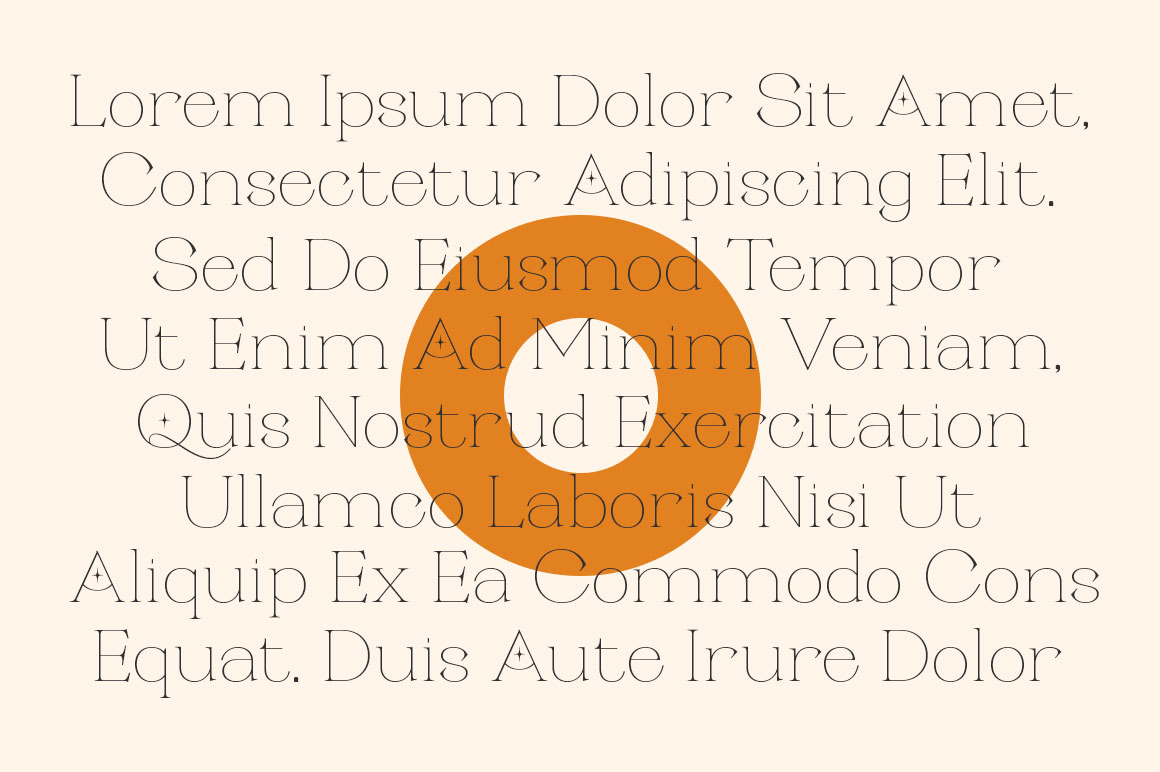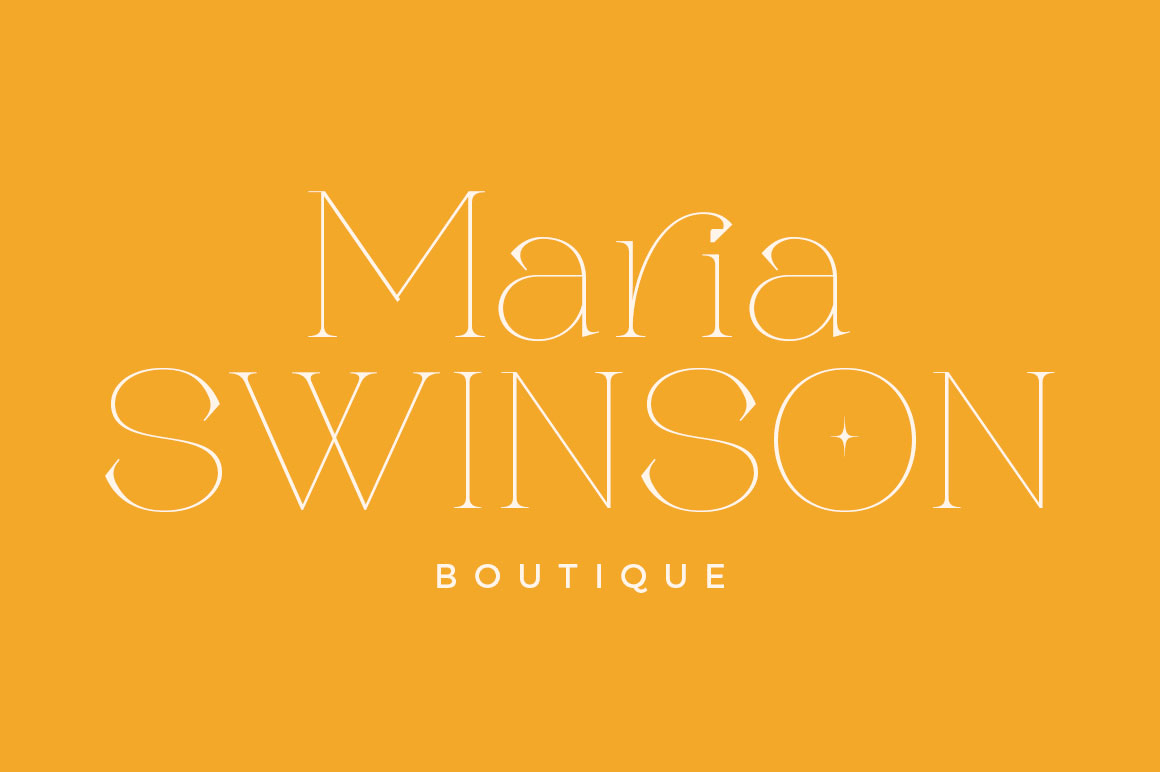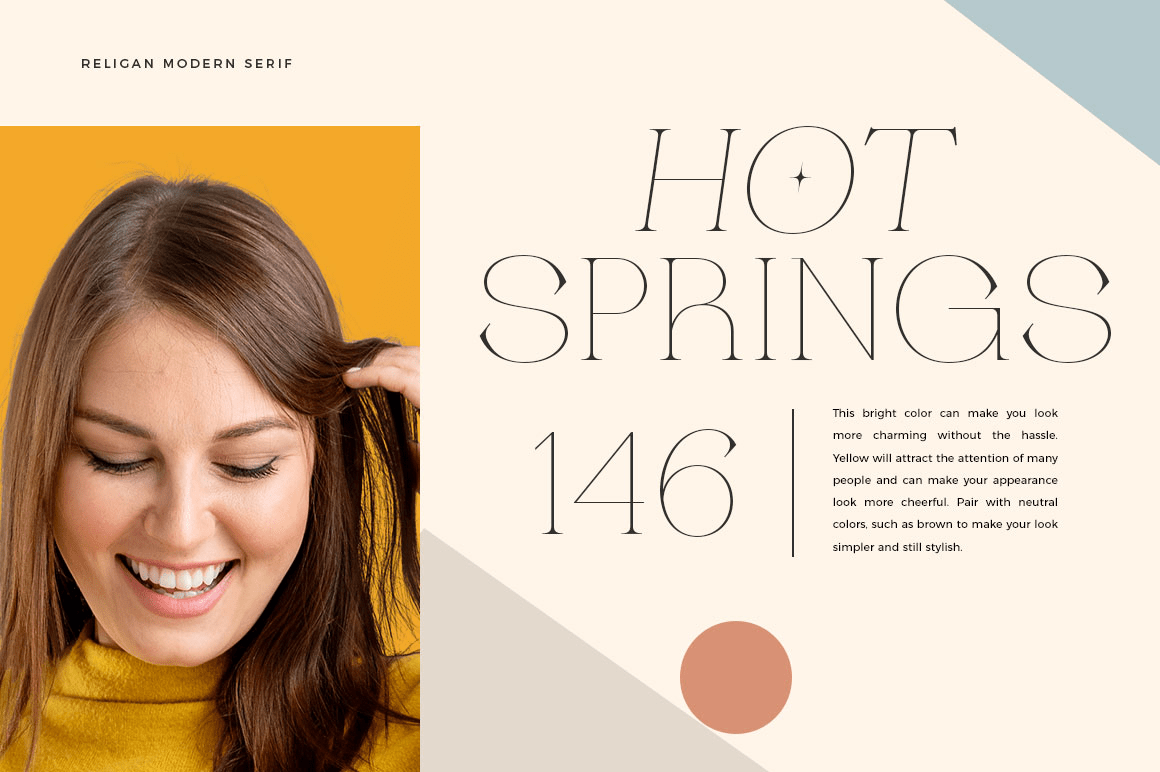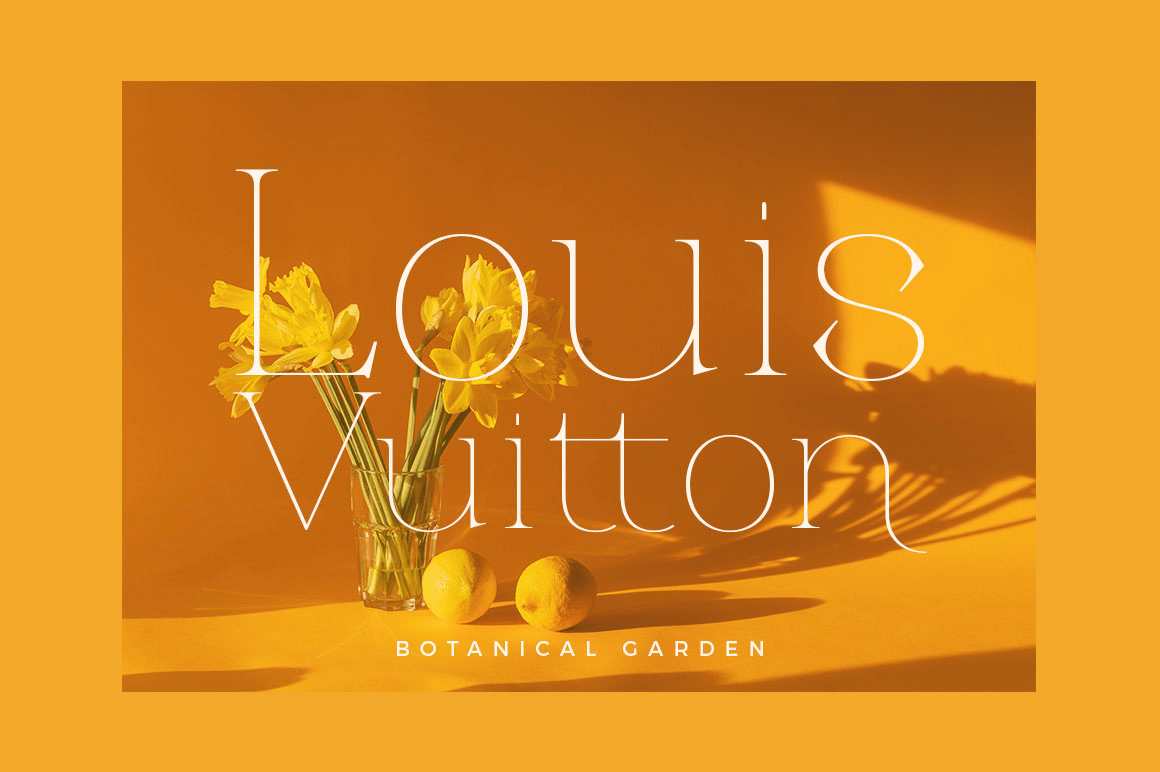
About Religan
The new Religan serif font is luxurious and elegant which will bring a unique style and trendy look to your designs. This modern serif font has several on-trend ligature binders and special characters to make it look more unique in all design projects…